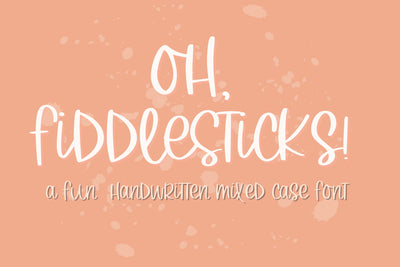
Oh, Fiddlesticks!, Cute Handwritten Font for Cricut, Cursive Script Handwriting
Introducing Oh Fiddlesticks!, our cute handwritten script font for Cricut & more, perfect for all your creative projects! This mixed case handwritten gem brings a delightful touch to invitations, greeting cards, and personalized crafts. Our handwriting font is compatible with SVGs, Goodnotes, Procreate, and many other programs. Transform your designs into stunning works of art with our versatile cute font, the ultimate choice for anyone seeking a captivating and expressive typeface for their projects.